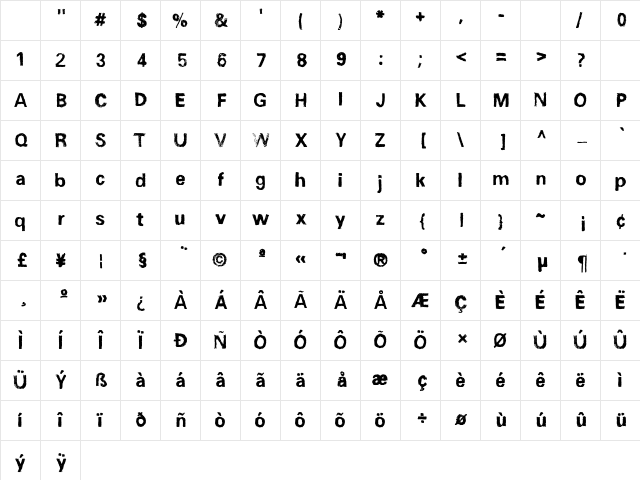
Complete Unisketch_limited Bold glyph index. Displaying only characters natively supported by Unisketch_limited Bold font.
Unisketch_limited is a composed and adaptable typeface that performs quietly and consistently across a wide range of design contexts. Its bold stroke weight gives it real presence on the page.
Who designed the Unisketch_limited Bold font?